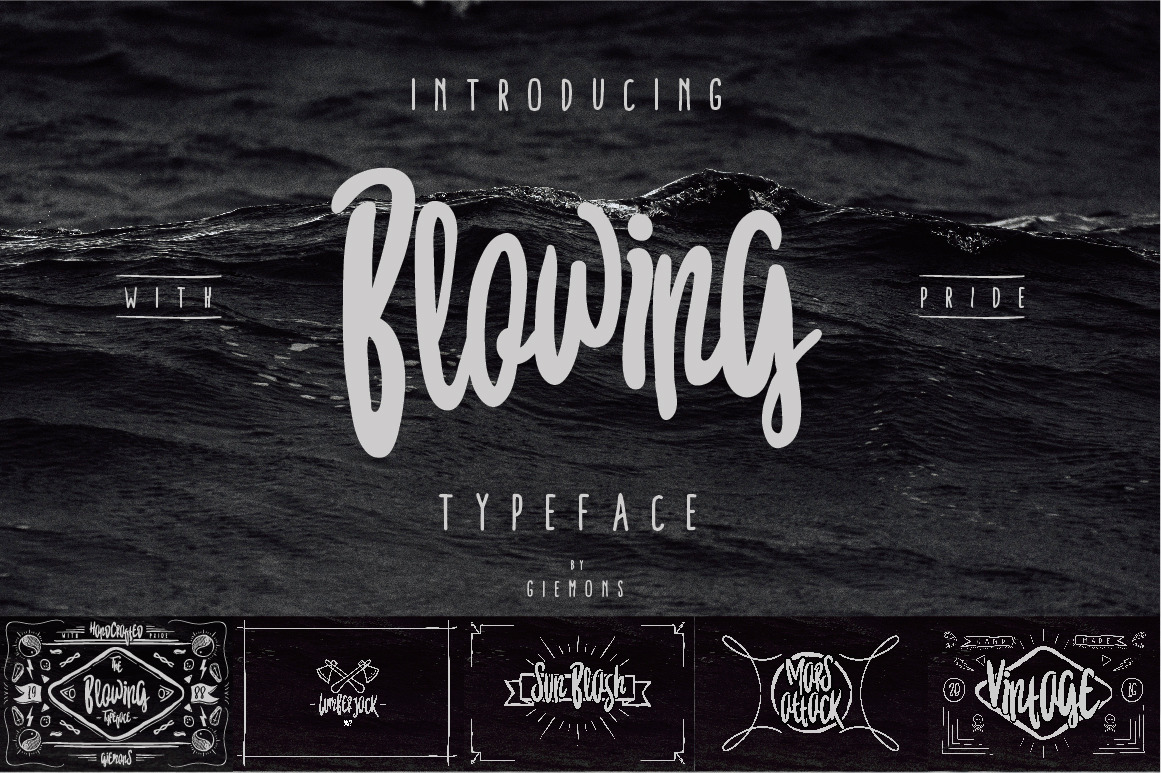
Blowing Typeface
Introducing BLOWING Typeface handmade font can make your design more stunning and more Awesome, BLOWING Typeface is perfect for making design: posters, a variety of quotes, header, logo design, blog headers, all kinds of covers, T-shirts, mugs, etc.